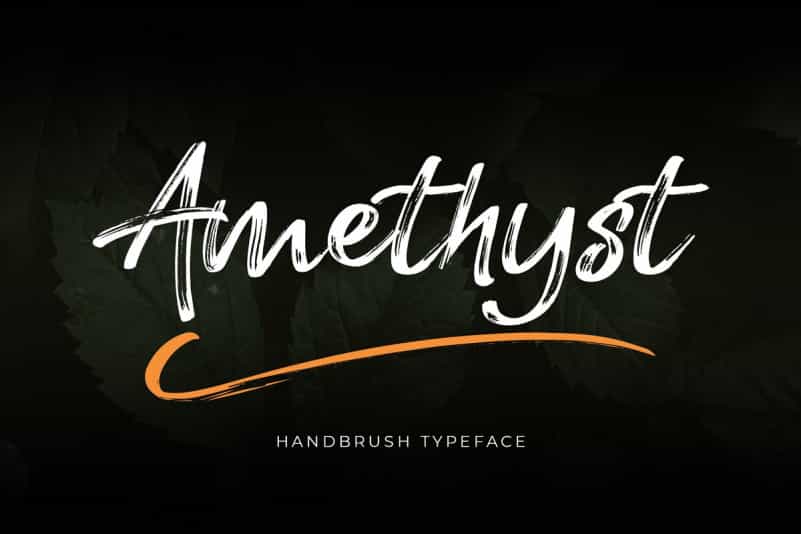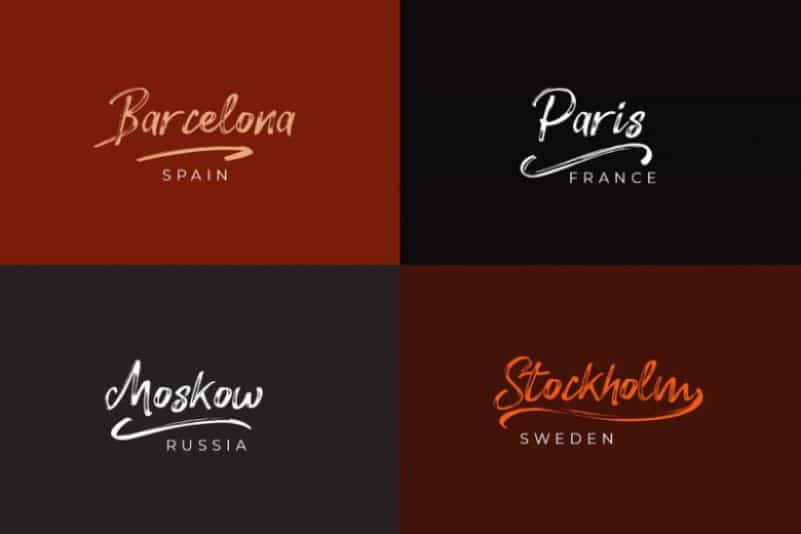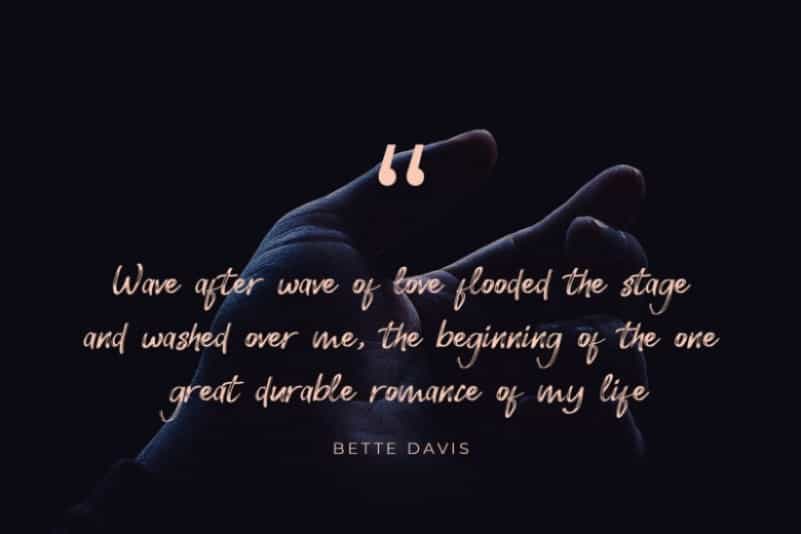
Amethyst is an interesting font that is handwritten that comes with a brush style. This beautiful script can make your design project look elegant, classy, luxury and modern. Amethyst Hand Brush is suitable for logo, wedding, social media, advertising, packaging, product, label, photography, watermark, invitation, stationery, and other branding and design purposes.